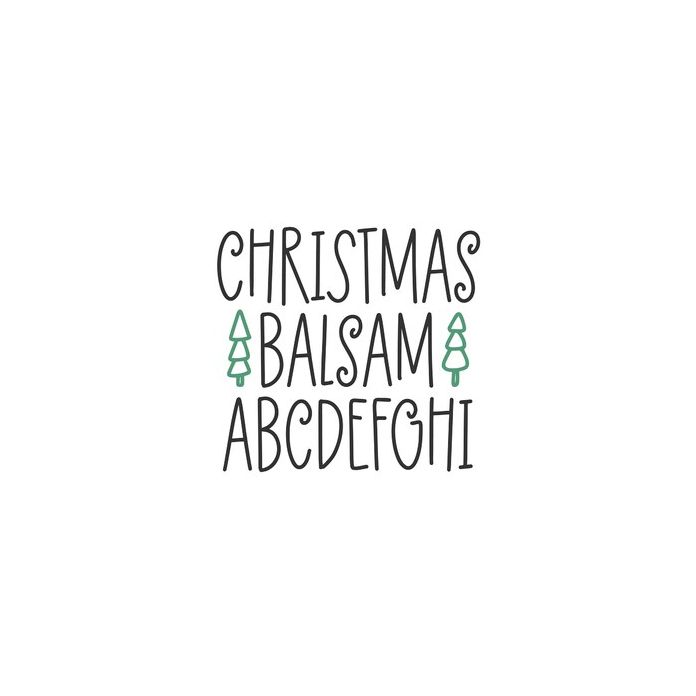
BFC Christmas Balsam Handwritten Font
Christmas Balsam is a whimsical handwritten Christmas Font. Use the <> keys to find the trees. Use the {} keys to find the stars.